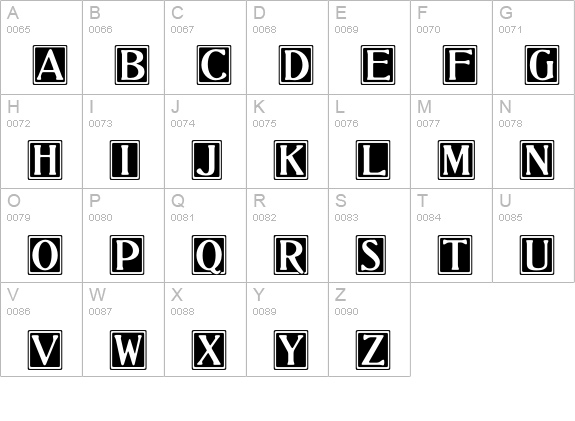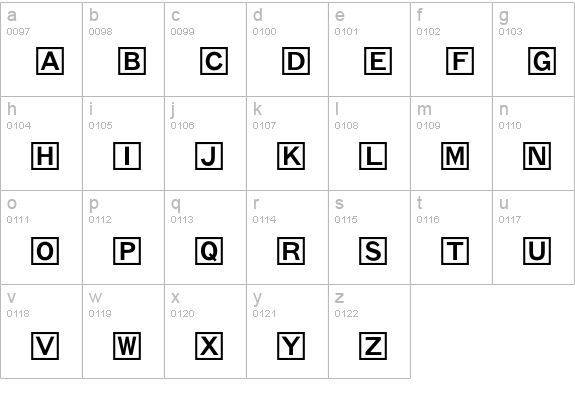
SpecialAlphabetsP06 Font Details
SpecialAlphabetsP06 is a visually stunning and creatively designed font that is sure to add a touch of uniqueness and charm to any project. With its intricate and intricate letterforms, this font is perfect for creating eye-catching headlines, logos, and other design elements. Its distinctive style and attention to detail make it stand out from the crowd, making it an excellent choice for anyone looking to make a statement with their typography. What sets SpecialAlphabetsP06 apart is not only its captivating design, but also the fact that it is completely free to download. That's right, you can enjoy all the beauty and versatility of this font without spending a dime. Whether you're a professional designer or just someone who loves to experiment with different fonts, SpecialAlphabetsP06 is a must-have addition to your collection. To get your hands on this amazing font, simply head over to FontsMarket.com, where it is freely available for download. FontsMarket.com is a trusted source for high-quality fonts, and they make it easy to find and download the perfect font for your needs. So why wait? Start adding a touch of magic to your designs with SpecialAlphabetsP06 today!